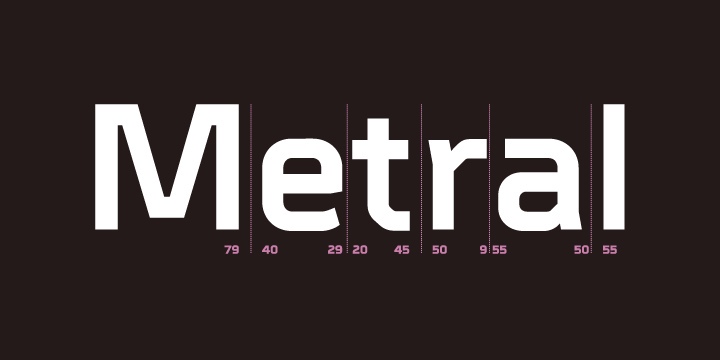
Metral Font
Metral Font is perfect for subway system signage, urban transportation branding, metropolitan transit materials, city rail communications, underground station displays, public transport marketing, municipal transit authority documents, and urban mobility publications where metropolitan efficiency and urban navigation are emphasized.
What makes Metral Font so exciting is its systematic ability to capture the precision and reliability of metropolitan transit systems through structured letterforms that embody the organized efficiency and urban sophistication of modern city transportation while maintaining exceptional clarity for public wayfinding. The institutional character design reflects the dependable service and navigational accuracy that defines successful urban transit systems.
The Metral Font family includes light, regular, medium, bold, and condensed weights, with transit-inspired variants and metropolitan ornamental elements that provide comprehensive tools for creating authentic urban transportation branding and city mobility design systems.
This functional typeface represents the backbone of urban communication, combining transit tradition with contemporary metropolitan requirements. The Metral Font Free Download gives transportation authorities access to typography that communicates urban efficiency and metropolitan connectivity.
The font's grid-based character architecture and systematic proportions create immediate associations with subway maps and urban transit infrastructure. Each letterform has been designed to convey the reliability and precision that commuters expect from quality metropolitan transportation services and urban mobility solutions.
Metral Font excels in creating clear public communications that guide urban navigation and promote metropolitan connectivity. The typeface's systematic character makes it ideal for transit authorities, urban planning departments, and city mobility companies targeting commuters seeking efficient urban transportation solutions.
From Paris Metro to New York subway systems, this font brings metropolitan credibility that resonates with urban commuters and city planners committed to efficient public transportation. The versatile design maintains its transit character across both traditional signage applications and modern digital urban mobility platforms.